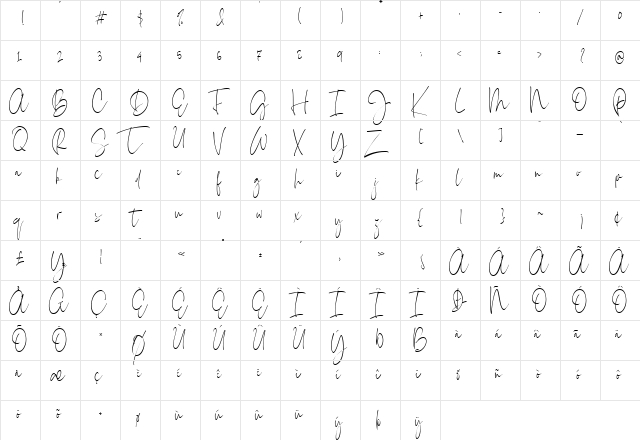
Everleigh Signature Script Regular
| Foundry | Hermansyah |
Design Context for Everleigh Signature Script Typeface
Everleigh Signature Script brings a calligraphic fluidity to the page — its connecting strokes and expressive curves give it an unmistakably human quality.